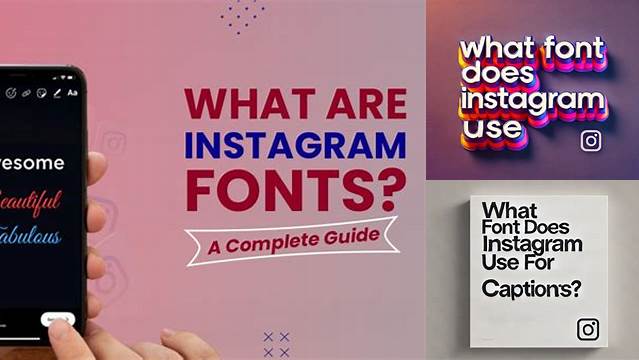
Instagram Font Styles On IOS: A Complete Guide
Hey everyone! 👋 Ever wondered about the cool fonts you see on Instagram and how to get them on your iOS device? Well, you're in the right place! We're diving deep into the world of Instagram font styles on iOS – exploring everything from the official options to some seriously fun third-party tools. Get ready to level up your Insta game and make your captions, stories, and bios stand out from the crowd. Let's get started!
1. Understanding Instagram's Official Font Choices
Alright, let's kick things off by talking about what Instagram officially offers when it comes to fonts. You know, the basics. When you open up the Instagram app on your iPhone or iPad, you'll notice that most of the text you see uses the platform's default font. However, Instagram provides a few built-in font styles that you can use for your Stories, Reels, and sometimes even for your profile bio. These official font options are designed to be consistent with the overall Instagram aesthetic. Understanding these official choices is the first step in mastering Instagram typography on iOS.
So, what are these official fonts, you ask? Well, while Instagram's primary font is the default system font, there's often a few alternative styles available in the Instagram app itself. You might find these font options within the Story editor, the text tool, or in other creative features. Unfortunately, Instagram doesn’t provide an exhaustive list of all the font names. The options usually include variations of the primary font, with options like a bold, italic, or other stylizations to give your text some additional flair. The specific font choices and their names may vary slightly as Instagram updates its features and user interface over time. It’s also important to note that while Instagram strives for consistency, the font appearance can vary a bit depending on your device and the current version of the app. The best way to see what fonts you have available is to simply open up the app and start playing around with the text features. Keep an eye out for the built-in options within the Instagram app. These are your go-to fonts when you want a quick and easy way to add some style to your content.
As you play around with these official font choices, take some time to experiment with different combinations. Different fonts can create very different moods. You can then explore various adjustments like size, color, and background effects to create visually appealing graphics. It's a simple way to personalize your content and make it stand out in the crowded Instagram feed. Even with these official options, you can add a unique touch to your posts, making them more engaging and memorable. This could be for your friends, followers, or anyone who stumbles upon your content. So, embrace the basics and start playing around with the default font options within Instagram. You might be surprised by how much you can change just by playing around with the built-in styles. Ready to take your Instagram game to the next level? Alright, let’s keep moving!
2. The Default Instagram Font and Its Name
Let's get down to the nitty-gritty of the default Instagram font! You'll notice that the text on Instagram is often set in a clean, modern font. So, what's the name of the default font? This is the font used across the app for things like usernames, captions, and comments. While Instagram has tweaked its font over the years, the primary font you'll see across the platform is often a variation of a sans-serif font. Typically, the font is similar to the system font that is built into your iPhone. It’s typically designed to be easily readable, even in small sizes. The goal is a consistent look and feel across the entire platform. The default font is optimized for readability, and accessibility. You'll find that the default Instagram font is a safe choice, ensuring that your content looks good on all devices.
In order to create a unified experience, Instagram's default font usually aligns with the system fonts of iOS devices. When it comes to the exact name, the default font may not be explicitly named within the app. Instead, it integrates the system font and provides a sense of consistency across the platform. However, you can identify the default font by simply observing the font used in the app. The default font has also been updated and refreshed over time. Its style may also vary based on the region, platform, and software updates. Even the slight changes in the font can subtly influence the perception and appearance of text. To determine the exact font being used, you can utilize tools like font identifier websites. But mostly, it's a variation of a sans-serif font, designed for clarity.
Ultimately, the name of the default Instagram font is not the most important thing. The key thing is its role in making your content readable and visually appealing. By understanding the default font, you can make informed choices and style options. You can then ensure your content blends in with the existing aesthetic of the platform. So, whether you’re a seasoned pro or a newbie, understanding the default font will help you better use the power of typography. Use the default font to your advantage to make your captions and stories look great!
3. Accessing Different Fonts in Instagram Stories on iOS
Alright, let's talk about the fun stuff: accessing different fonts in Instagram Stories on iOS! This is where you can really get creative and make your stories pop. Instagram provides a few built-in font options that you can use for your Stories, adding some visual flair to your content. However, it is important to understand where these fonts can be found on the iOS system. Open the Instagram app on your iOS device. Then, tap the camera icon to create a new story. This will bring up the story creation interface. Once you have captured or selected the picture or video for your story, tap the text tool icon. The text tool is usually represented by the